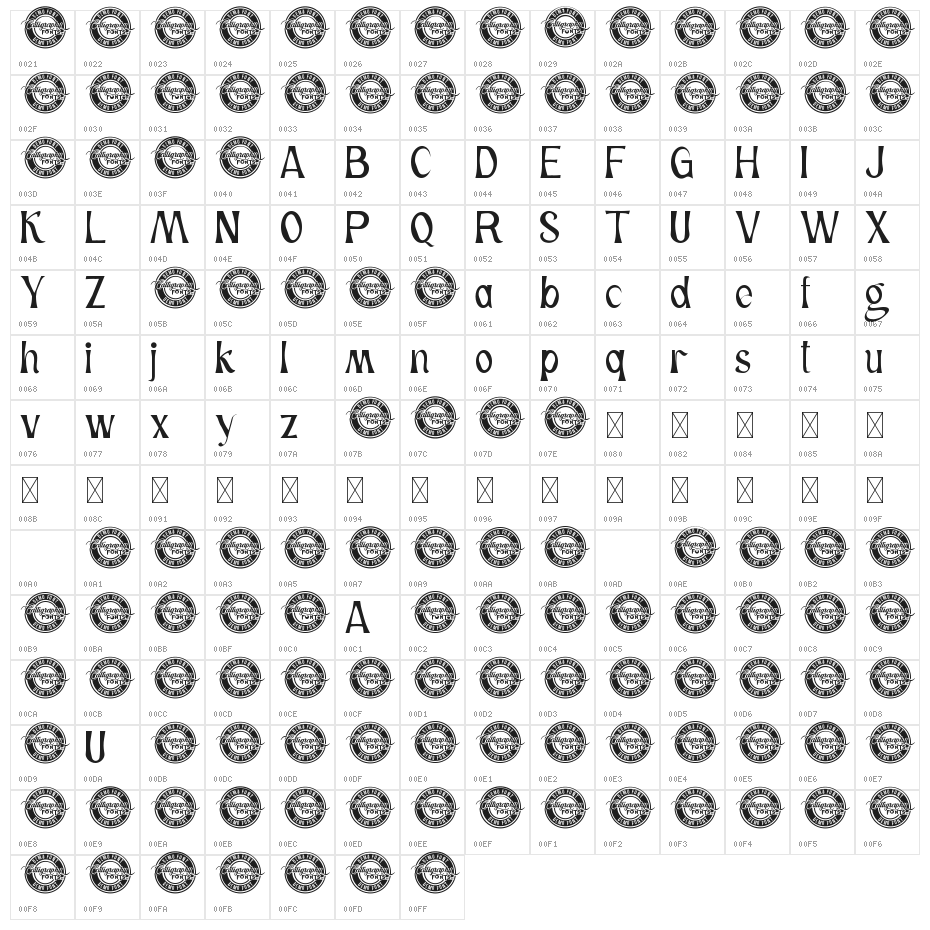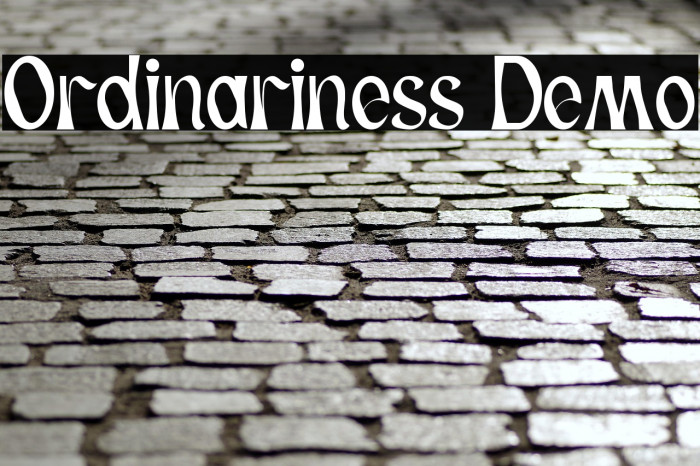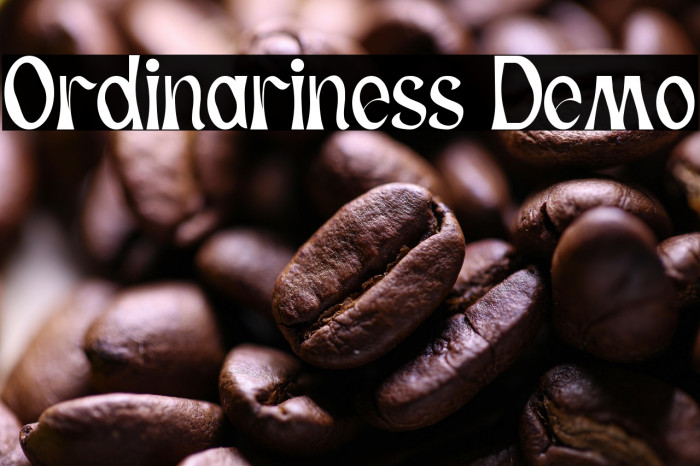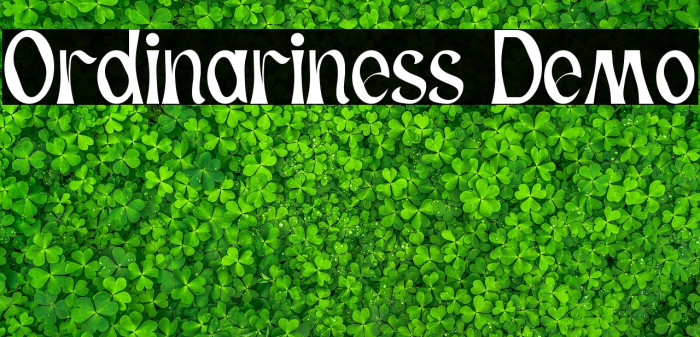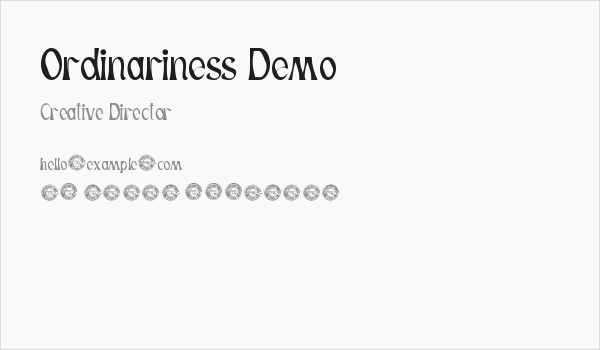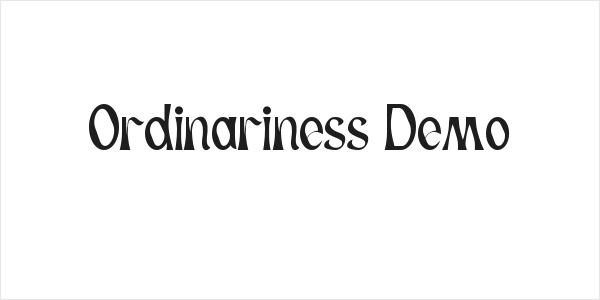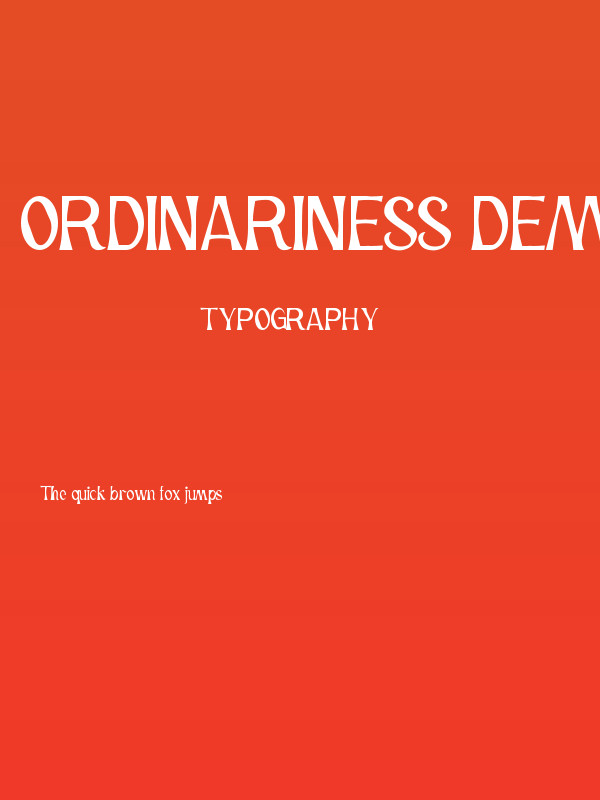
Ordinariness Demo Font
Ordinariness Demo Description
This font features a unique and playful design with exaggerated curves and varying stroke widths, giving it a whimsical and artistic appearance. The uppercase letters are bold and dynamic, with a slight tilt that adds movement and energy. The lowercase letters maintain the playful style, with some characters featuring distinctive loops and swirls. The numbers and special characters are consistent with the overall design, ensuring a cohesive look across all text elements. This font is ideal for projects that require a touch of creativity and flair, making it perfect for artistic and decorative purposes.
| Use Case | Headlines, Logos, Artistic displays |
| Proposed Projects | Ideal for creative projects such as posters, invitations, branding, and artistic displays. |